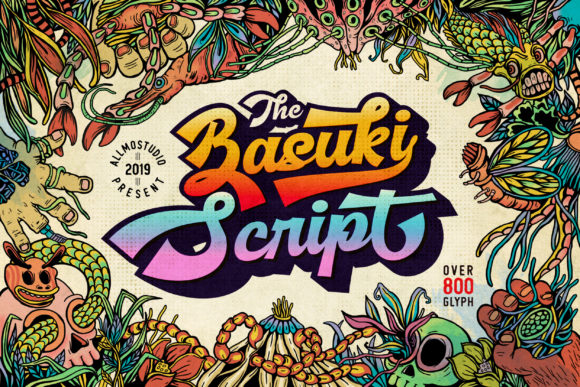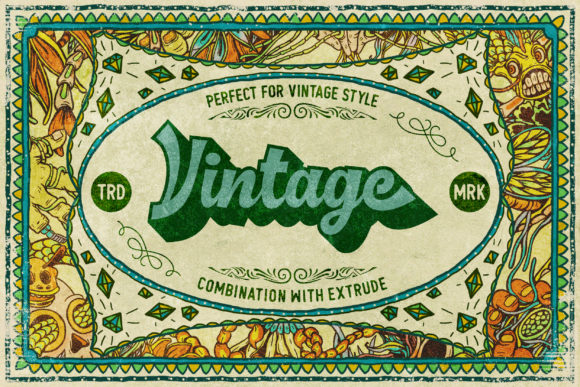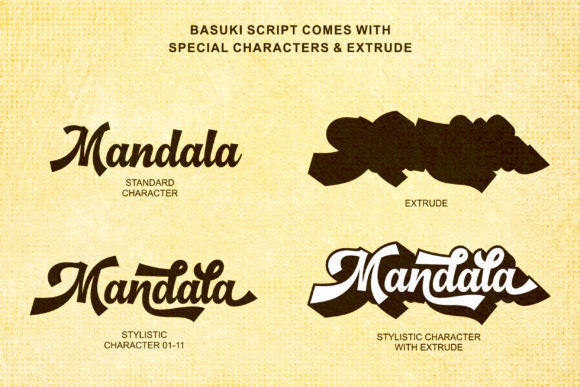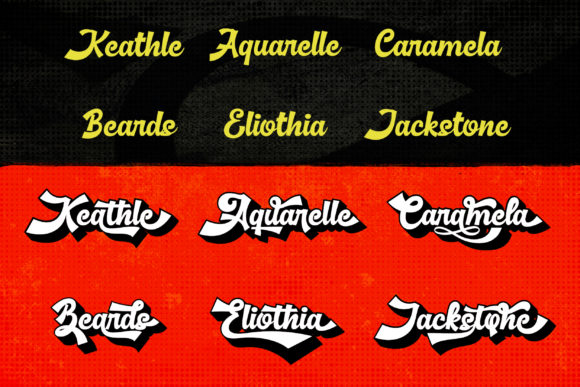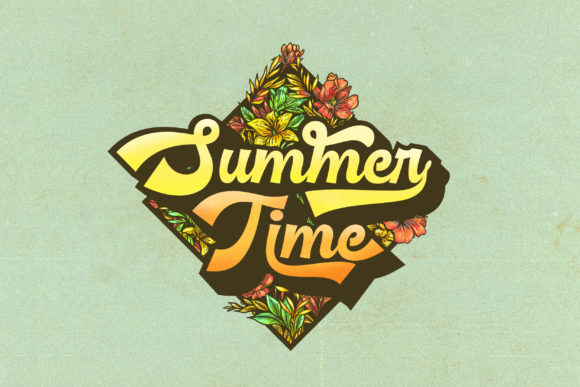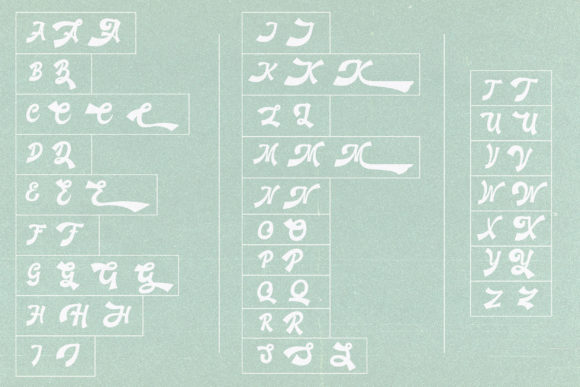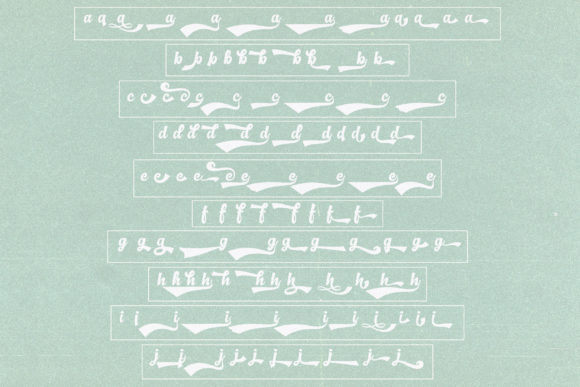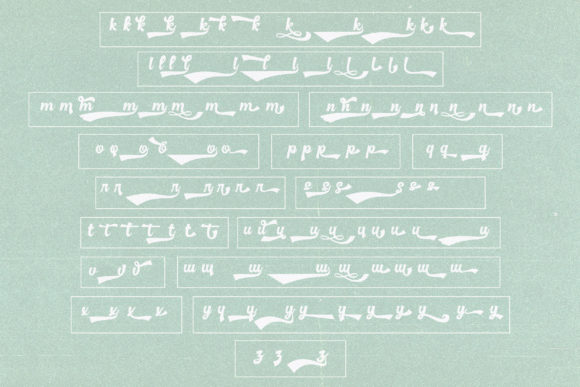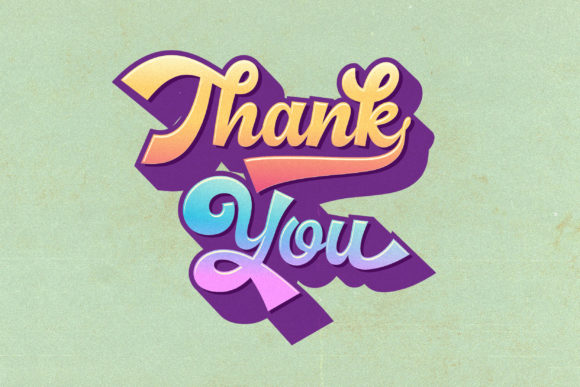
Basuki Font
About Basuki Font
Basuki is a fun and cool handwritten font with a bold feel. Its powerful letters will convey any message in a strong and compelling way, making it the perfect font for advertising projects!